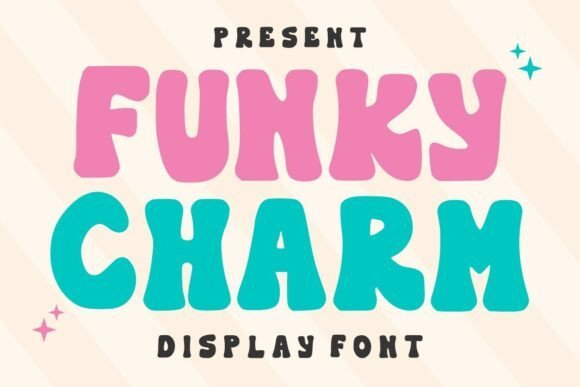
Unleash the Funky Charm of Your Designs
Do you remember the thrill of creating a poster for your favorite school event or band? The rush of excitement as you carefully choose the perfect font to grab everyone’s attention? That’s the magic of design, and it’s a feeling that never gets old. For designers, the right font can make all the difference between a good design and a great one.
Enter the Funky Charm Font, a fun retro display font that’s sure to bring a smile to your face. With its dynamic effect and unique charm, this font is perfect for adding a touch of personality to your craft projects, mugs, gifts, and more. Whether you’re designing a banner for a special event or creating a fun poster for kids, the Funky Charm Font is a valuable addition to any designer’s toolkit.
Funky Charm Font Key Features
- Unique Characteristics: Distinctive, hand-drawn feel with a touch of funk and playfulness, adding a creative twist to any design.
- Character Set: Includes a wide range of characters, including Latin, Cyrillic, and Greek alphabets, as well as punctuation and symbols.
- Font Weight and Style: Each style is carefully crafted to maintain a consistent look and feel, with subtle variations to enhance readability.
Funky Charm Font Review
I recently had the chance to play around with the Funky Charm Font, and I must say it’s a unique addition to any design project. ✨ The font’s quirky, hand-drawn style adds a touch of personality to text, making it perfect for projects that need a bit of whimsy.
One of the things I appreciate about Funky Charm is its versatility. ✨ It works well for both headings and body text, and the font’s varying line weights make it easy to create visual interest. ✨ I also love how the font’s imperfections add a sense of handmade charm – it’s like each letter was drawn by hand.
However, I do have a few concerns. ⚠️ For one, the font can be a bit overwhelming if used too extensively. ⚠️ It’s best to use it sparingly, as a accent font, to avoid visual overload. ⚠️ Additionally, some of the characters may not be perfectly legible, especially at smaller font sizes.
Funky Charm is a fun, one-of-a-kind font that’s perfect for designers who want to add a bit of personality to their projects. While it may have some limitations, the font’s unique charm makes it a worthwhile addition to any design arsenal.
Recommendations
- Use Funky Charm as an accent font to add visual interest.
- Pair Funky Charm with a clean, sans-serif font for contrast.
- Use Funky Charm for headings and titles, reserving it for smaller text sizes.
Tips for Getting the Most Out of Funky Charm Font
For best results, use Funky Charm Font in bold or italic styles to add emphasis to your text. Experiment with different font sizes and colors to create a visually appealing design.
Common Use Cases for Funky Charm Font
Funky Charm Font is perfect for creating eye-catching headings, titles, and captions for social media graphics, posters, and flyers. It’s also great for adding a touch of personality to your resume, business cards, and marketing materials.